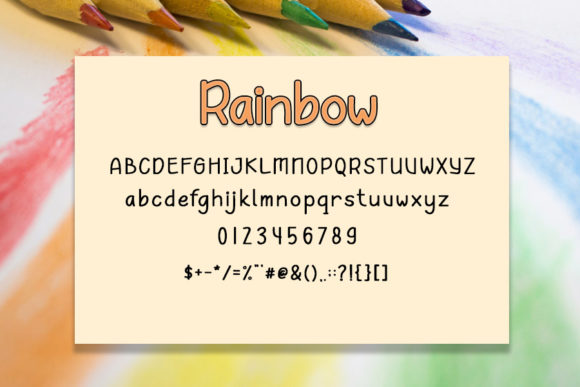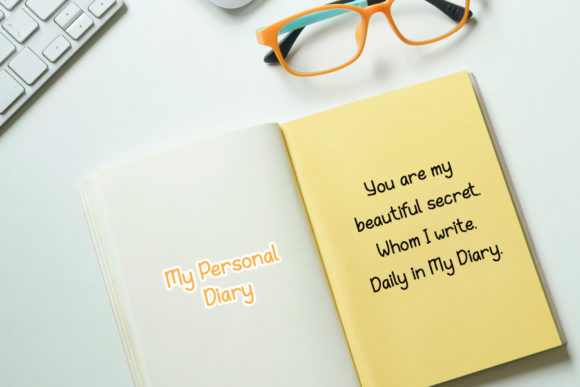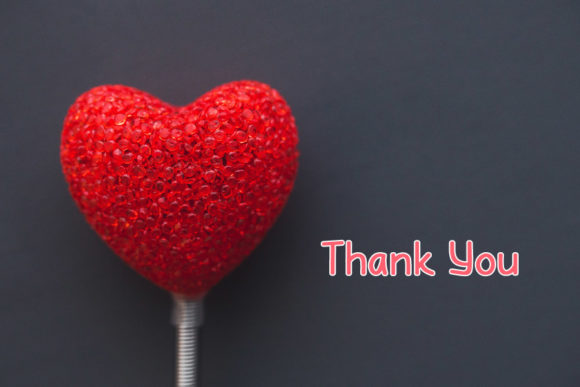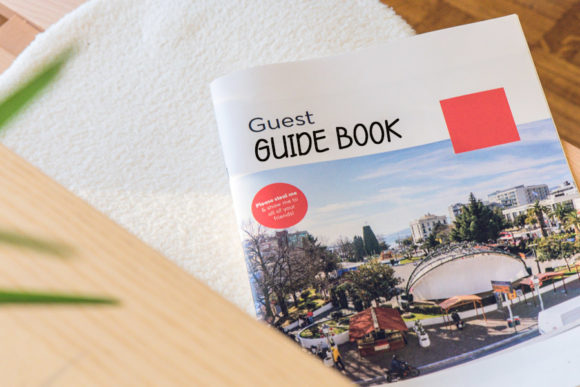
Rainbow Font
Rainbow is a minimal and simple handwritten font. It can easily be matched to an incredibly large set of projects, so add it to your creative ideas and notice how it makes them stand out!